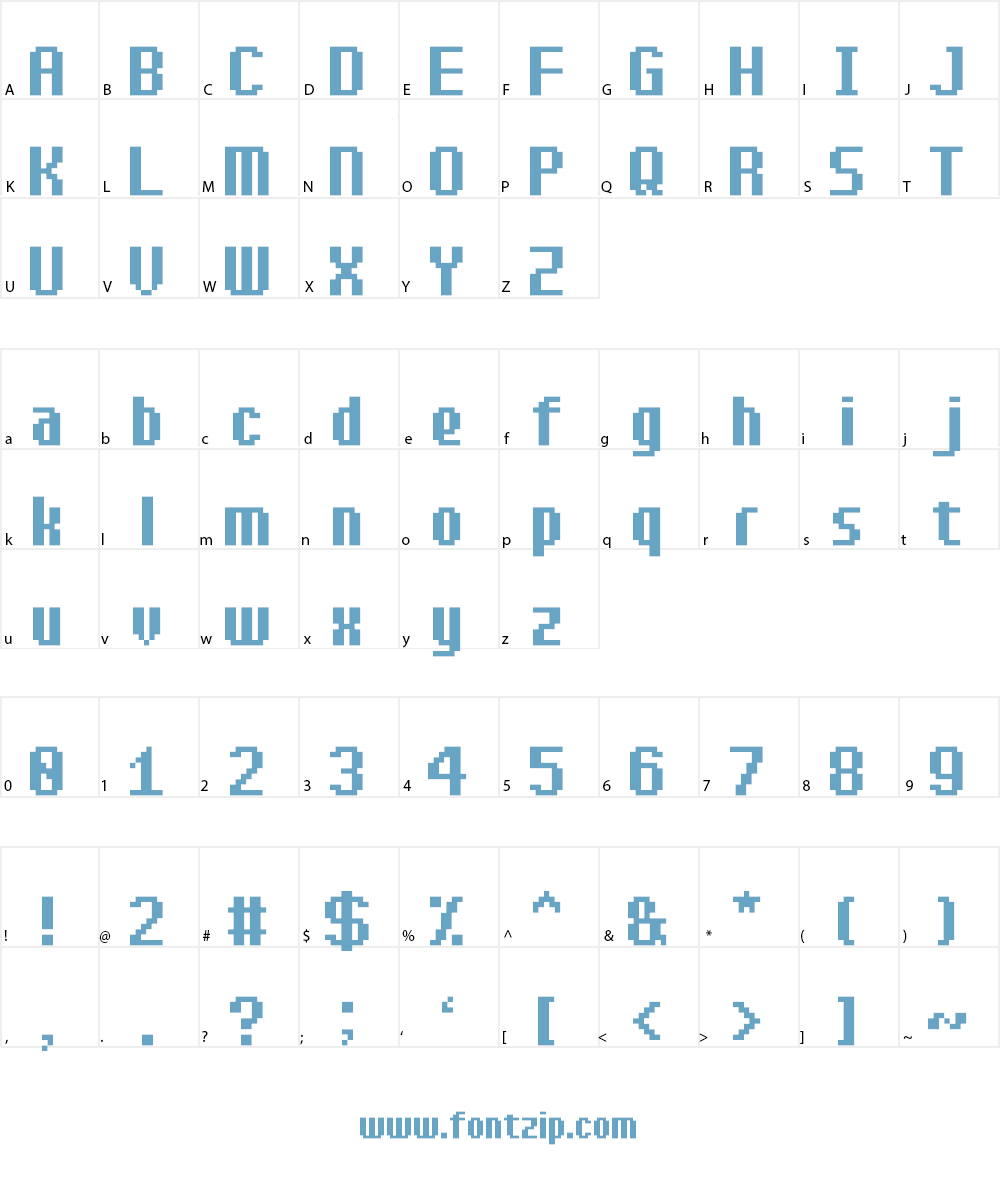
Original size: 8.25pt (use multiples of this size for pixel perfection)
A decolike pixel font I made for friends. It reminds me of the fonts used by old cellphones, except bigger and with more line width variation. Makes a decent chat font too! Supports Danish, Dutch, English, Finnish, French, German, Hungarian, Icelandic, Italian, Norwegian, Polish, Portuguese, Spanish, and Swedish.